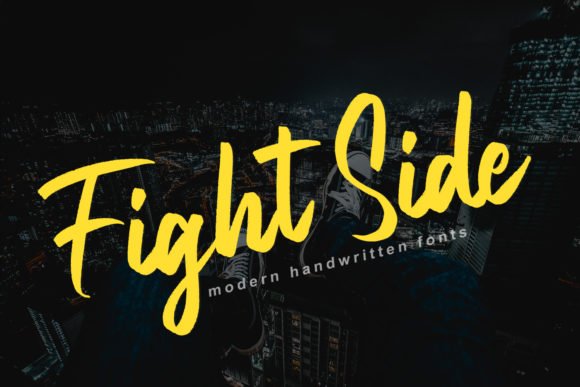
When Words Come Alive
As a designer, there’s nothing quite like the thrill of discovering a new font that speaks to your creative soul. You know, that moment when words on a page or screen transform into a work of art, transporting your audience to a new world of emotion and understanding. For me, it’s like witnessing a story unfold, one letter at a time.
Enter Fight Side Font, a charming and elegant typeface that brings a touch of sophistication to any design. Whether you’re crafting a quote, headline, logo, or entire brand identity, Fight Side Font is the perfect partner in crime. Its flowing curves and harmonious lines make it an incredibly versatile choice, begging to be used in a variety of creative applications.
For designers, Fight Side Font is a valuable addition to any toolkit. Its unique blend of elegance and playfulness makes it an ideal choice for those looking to add a touch of personality to their designs without sacrificing readability or professionalism.
Fight Side Font Key Features
- Stylistic Variations: Offers multiple stylistic sets, each with distinct variations in letterforms and spacing, allowing designers to add visual interest to their designs.
- Font Weight: Available in light, regular, medium, bold, and heavy weights, enabling designers to achieve the desired level of emphasis and contrast.
Fight Side Font Review
I recently had the chance to work with the Fight Side Font, and I have to say, it’s an interesting addition to any design project. ✨ The bold, energetic feel of the font makes it perfect for sports-related themes or anything that needs a high-energy vibe.
Here are some of the things that work well with the Fight Side Font:
- Unique character set that’s perfect for sports or action-related themes
- Great for use in headlines or titles due to its bold, eye-catching design
- Supports a wide range of languages, making it a versatile option for global projects
However, there are also some limitations to keep in mind:
- May not be suitable for body text due to its bold design, which can be difficult to read in large quantities
- Lacks a corresponding light or thin version, which may limit its use in more subtle designs
- May require additional styling or formatting to achieve a balanced look in certain contexts
Overall, I think the Fight Side Font is a great addition to any design project that needs a bold, energetic feel. While it may have some limitations, it’s definitely worth considering for the right project. With a little creativity and styling, it can really make a statement.
Fight Side Font is ideal for:
- Graphic design projects (e.g., posters, flyers, and social media graphics).
- Infographic design projects (e.g., data visualization and information graphics).
- Typography-focused projects (e.g., logos, typography posters, and word art).
Remember to use Fight Side Font in moderation and balance it with other design elements to avoid visual overload.
Alternatives to Fight Side Font
Fight Side Font is a sans-serif font known for its geometric shapes and strong character. However, designers may be looking for alternatives that offer similar or distinct features. Here are a few options: